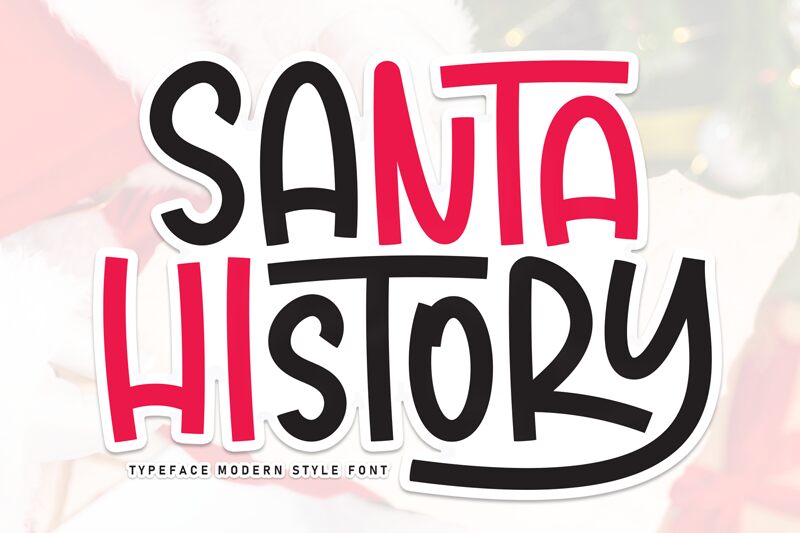
Santa History
Santa History font by Scratchones is a free comic display font with a quirky and playful style. The hand-drawn characters feature inconsistent line thickness, prevailing over letters and numbers alike. Its relaxed tone at the letter level contributes to its total casual appearance which can create friendly, welcoming, and inviting designs.
Use Santa History in book titles for kids, packaging designs for children’s toys or snacks, kindergarten event posters, phrase quotes that need fun appearance or book covers. Try it also for invitation cards to kid events; birthday parties etc., activity worksheets, web fonts in kid-dedicated websites/apps.